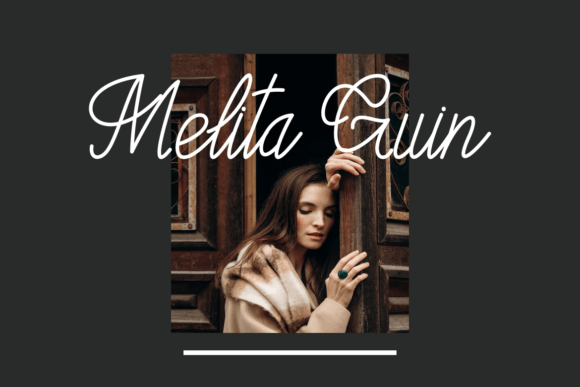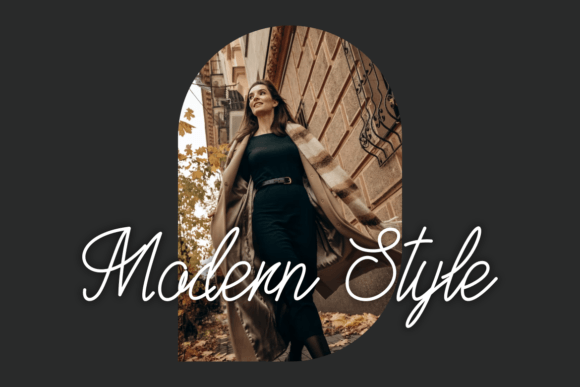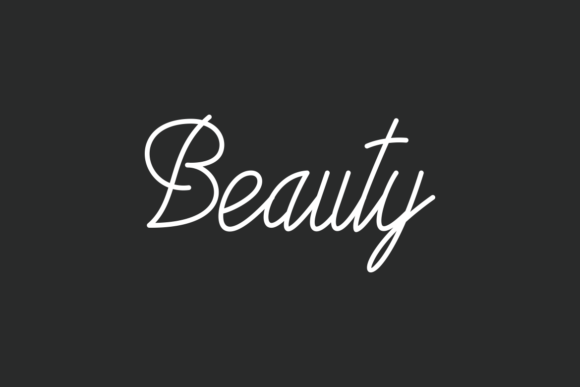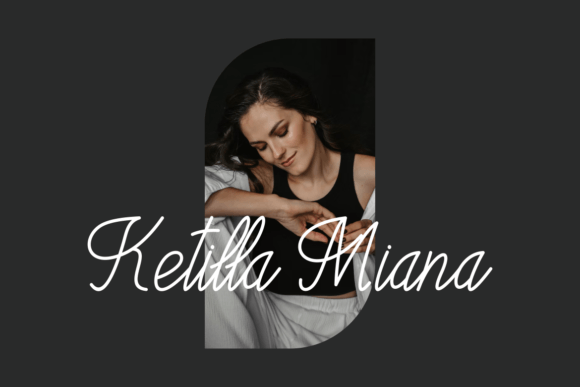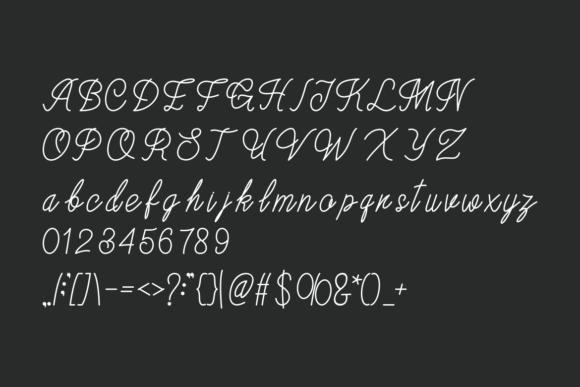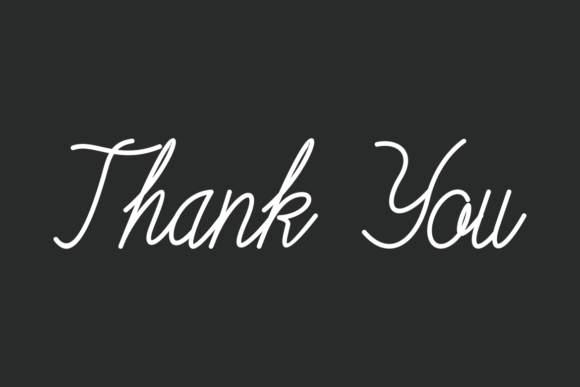
Introducing Glowsan Font: Elevate Your Designs with Elegance and Sophistication
In the world of typography, fonts play a crucial role in conveying the tone and personality of a design. For designers and crafters seeking a script and handwritten font that exudes beauty, classiness, elegance, and modernity, Glowsan Font is an exceptional choice. This versatile font is perfectly suited for a wide range of projects, from signatures and stationery to logos, wedding designs, typography quotes, magazine or book covers, website headers, clothing, branding, packaging design, and more.
The Essence of Glowsan Font
Glowsan Font is a meticulously crafted script and handwritten font that embodies the essence of elegance and sophistication. Its beautiful, classy, and modern design makes it an ideal choice for designers who want to add a touch of refinement to their work. Whether you’re creating a logo, designing a wedding invitation, or crafting a typography quote, Glowsan Font is sure to impress.
Key Features of Glowsan Font
- Script and Handwritten Design: Glowsan Font boasts a unique script and handwritten design that adds a personal touch to any project.
- Elegant and Modern: The font’s elegant and modern design makes it perfect for a wide range of applications, from traditional to contemporary.
- Versatile: Glowsan Font can be used for various projects, including signatures, stationery, logos, wedding designs, typography quotes, magazine or book covers, website headers, clothing, branding, packaging design, and more.
- Easy to Read: The font’s clear and readable design ensures that your message is conveyed effectively, making it perfect for body text and headings.
Use Cases for Glowsan Font
Glowsan Font’s versatility makes it an excellent choice for various design projects. Here are some use cases to inspire you:
- Signatures and Stationery: Add a touch of elegance to your business cards, letters, and invoices with Glowsan Font.
- Logos and Branding: Create a lasting impression with a logo that exudes sophistication and refinement.
- Wedding Designs: Make your wedding invitations, programs, and decorations truly special with Glowsan Font’s beautiful script design.
- Typography Quotes: Add a touch of elegance to your typography quotes and make them stand out on social media or in print.
- Magazine or Book Covers: Use Glowsan Font to create eye-catching headlines and titles for your magazine or book covers.
- Website Headers: Elevate your website’s design with Glowsan Font’s elegant and modern script design.
- Clothing and Packaging Design: Add a touch of sophistication to your clothing and packaging designs with Glowsan Font.
Tips for Using Glowsan Font
To get the most out of Glowsan Font, here are some tips to keep in mind:
- Pair with Other Fonts: Experiment with pairing Glowsan Font with other fonts to create a unique and visually appealing design.
- Use for Headings and Titles: Use Glowsan Font for headings and titles to add a touch of elegance and sophistication to your design.
- Adjust Font Size and Color: Adjust the font size and color to suit your design needs and ensure that your text is readable.
Glowsan Font is an exceptional script and handwritten font that offers elegance, sophistication, and versatility. With its beautiful design and wide range of applications, it’s perfect for designers and crafters seeking to elevate their designs. Whether you’re creating a logo, designing a wedding invitation, or crafting a typography quote, Glowsan Font is sure to impress. So why wait? Download Glowsan Font today and take your designs to the next level!